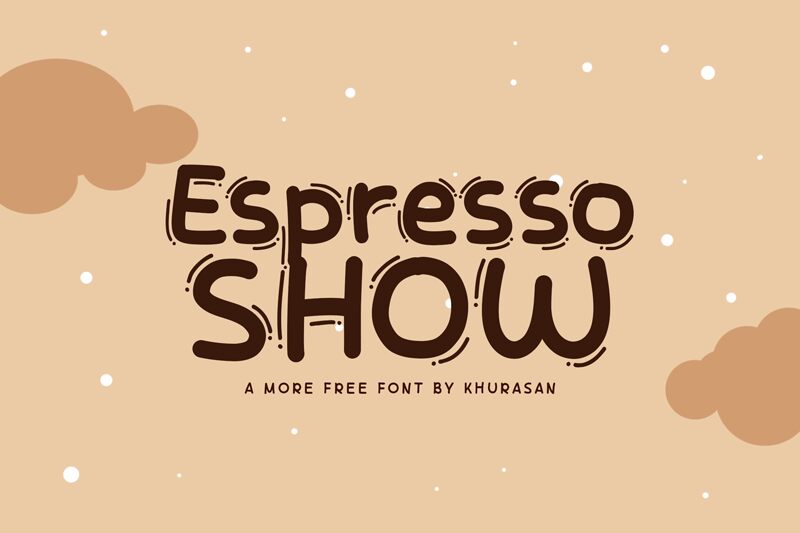
Espresso Show, designed by Khurasan, is a playful and dynamic display font that immediately captures attention with its cartoon-style flair. Its semi-expanded width offers a friendly presence that stands out on the page, making it an excellent choice for designers seeking to inject a touch of whimsy into their projects.
The aesthetic appeal of Espresso Show lies in its organic, hand-drawn qualities, which suggest movement and energy. Each character brims with personality, hinting at the font's potential to breathe life into creative endeavors ranging from children's book titles to quirky branding materials.
The versatility of Espresso Show is evident in its suitability for both print and digital media. Whether used in large headers or as an accent font for logos, this typeface promises to add a bold yet approachable element to designs that aim to be both fun and engaging.